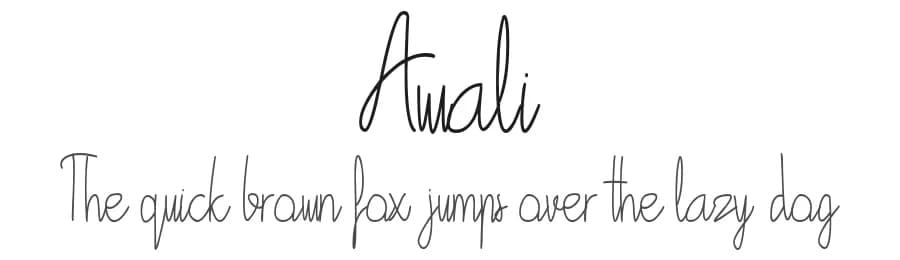
About Awali Font
Awali is a script & handwritten font designed by Just Lett. It includes 164 glyphs, a regular weight, OTF (CFF) format, and 107 languages. Awali is free to download; check the license details on this page before commercial use. Script & handwritten fonts like Awali work best for wedding invitations, greeting cards, signatures, and elegant branding.
Awali Font is a script font that shines as a display or heading face. Pair it with a clean sans-serif or serif font for body text β the contrast creates a clear hierarchy while the two styles stay balanced and easy to read.
Awali Font